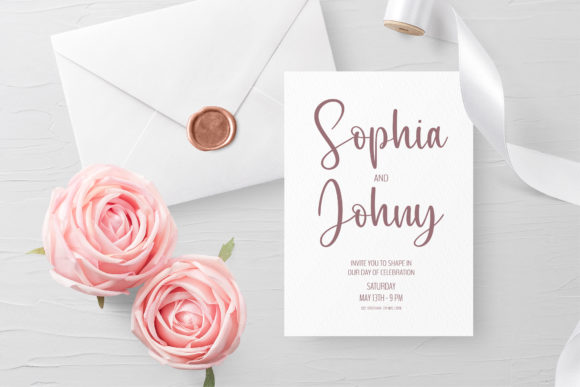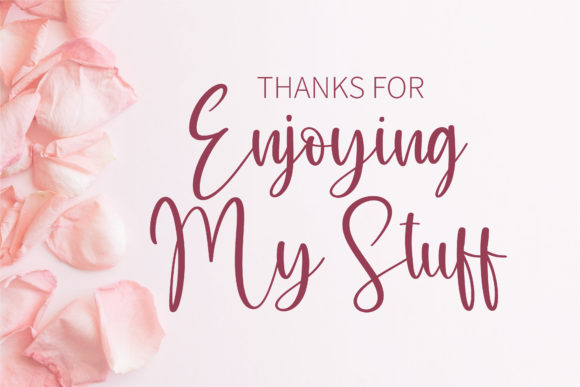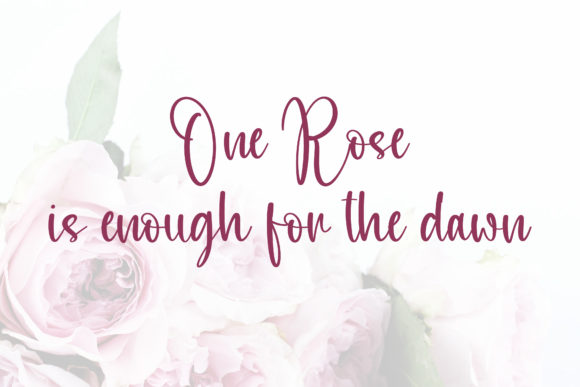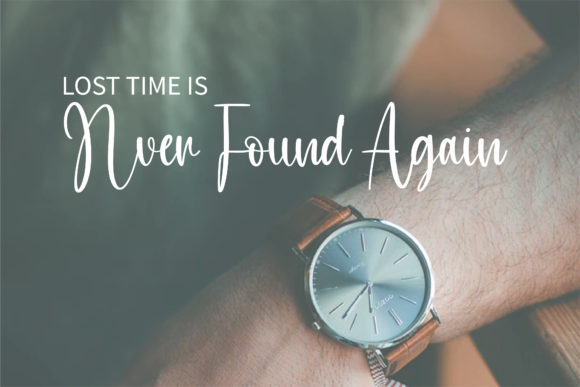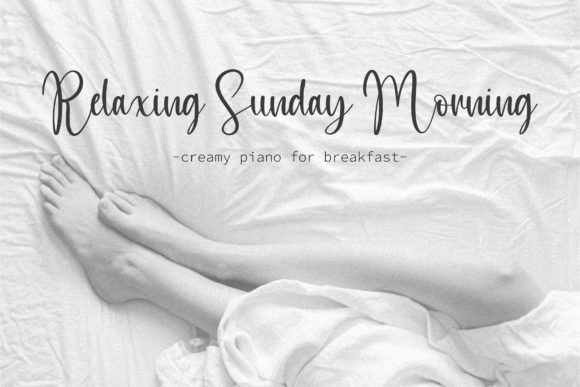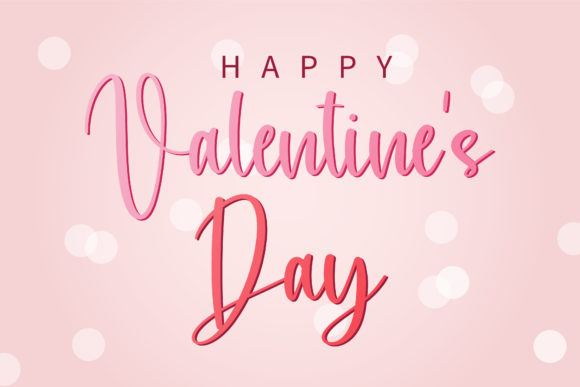
Introducing Factory Love Font: Elevate Your Designs with a Modern Script Style
In the world of design, typography plays a crucial role in conveying messages, evoking emotions, and creating a lasting impression. For designers and crafters looking for a font that embodies modernity, elegance, and a touch of uniqueness, Factory Love Font is an exceptional choice. This modern script font is designed to inspire creativity and bring a fresh perspective to a wide range of design projects.
The Essence of Factory Love Font
Factory Love Font is characterized by its natural and unique style, making it incredibly versatile and adaptable to various design needs. Whether you’re working on a branding project, crafting a beautiful wedding invitation, designing a logo, or creating engaging social media content, Factory Love Font is sure to make your work stand out. Its modern script style offers a perfect blend of sophistication and approachability, allowing designers to convey their message with elegance and clarity.
Unleash Your Creativity with Factory Love Font
The true beauty of Factory Love Font lies in its flexibility and the limitless possibilities it offers. The only limit is your imagination! Designers and crafters can experiment with various design elements, such as colors, textures, and patterns, to create unique and captivating visual experiences. Whether you’re aiming for a minimalist look or a more elaborate design, Factory Love Font provides the perfect foundation for your creative endeavors.
Key Features of Factory Love Font
- Modern Script Style: Factory Love Font boasts a contemporary script style that adds a touch of sophistication to any design.
- Natural and Unique: Its natural flow and unique characteristics make it stand out from traditional fonts, offering a fresh perspective for designers.
- Versatility: Suitable for a wide range of design projects, from branding and advertising to personal stationery and digital content.
- Ease of Use: Factory Love Font is easy to read and works well in both digital and print formats, making it a versatile tool for various applications.
Applications of Factory Love Font
Factory Love Font’s versatility makes it suitable for numerous design applications, including:
- Branding and Logos: Create memorable brand identities with a font that exudes modernity and elegance.
- Wedding and Event Stationery: Add a touch of sophistication and romance to wedding invitations, menus, and other event materials.
- Digital Content: Enhance your social media posts, blog headers, and website content with a modern script font that captures attention.
- Advertising and Marketing: Stand out in the crowded advertising space with Factory Love Font’s unique and captivating style.
Factory Love Font is more than just a modern script font; it’s a tool for creativity and self-expression. Its natural and unique style, combined with its versatility, makes it an invaluable asset for designers and crafters looking to elevate their designs. Whether you’re a professional designer or a DIY enthusiast, Factory Love Font offers endless possibilities for creating stunning visual content. So, unleash your imagination and let Factory Love Font guide you in creating designs that leave a lasting impression.